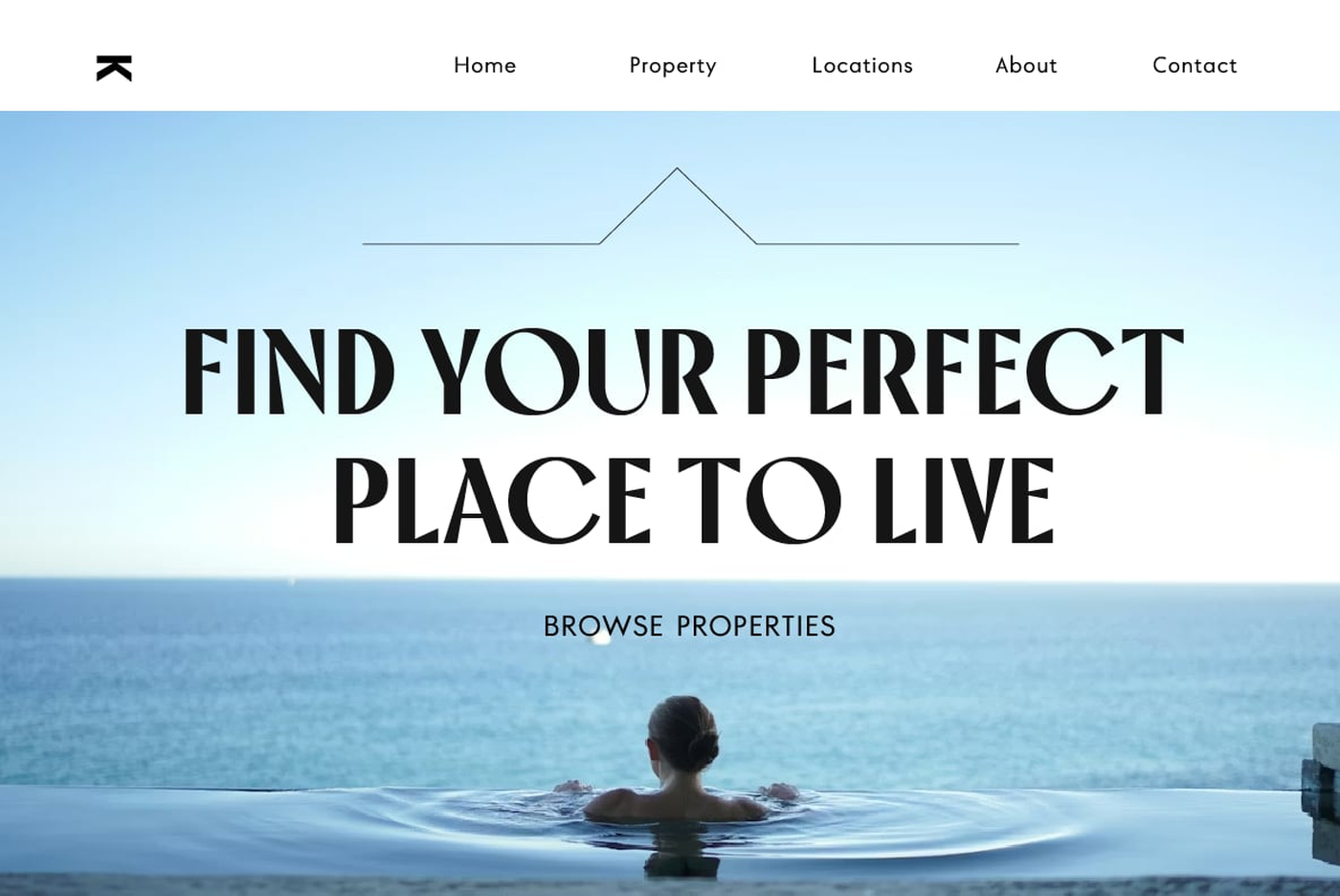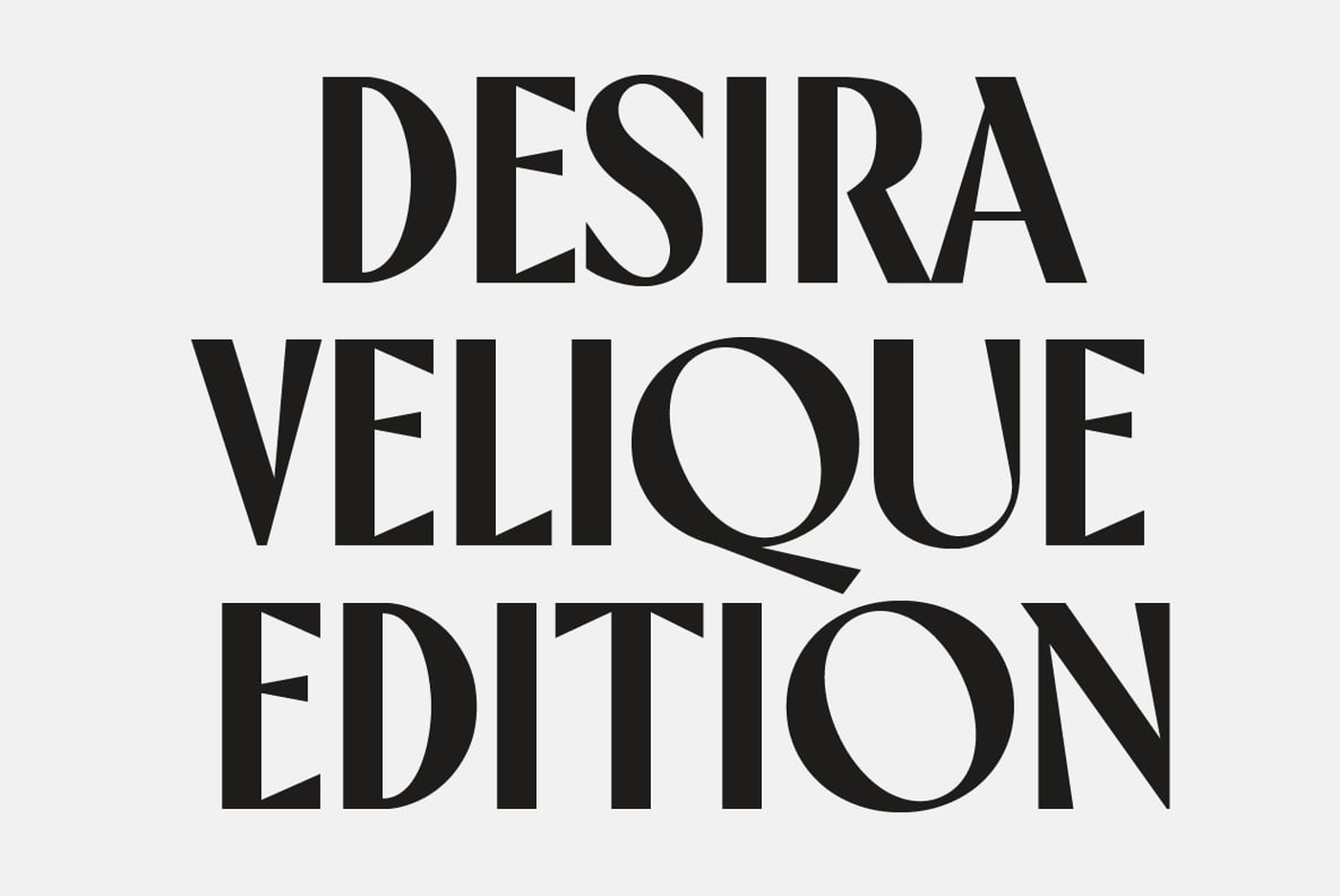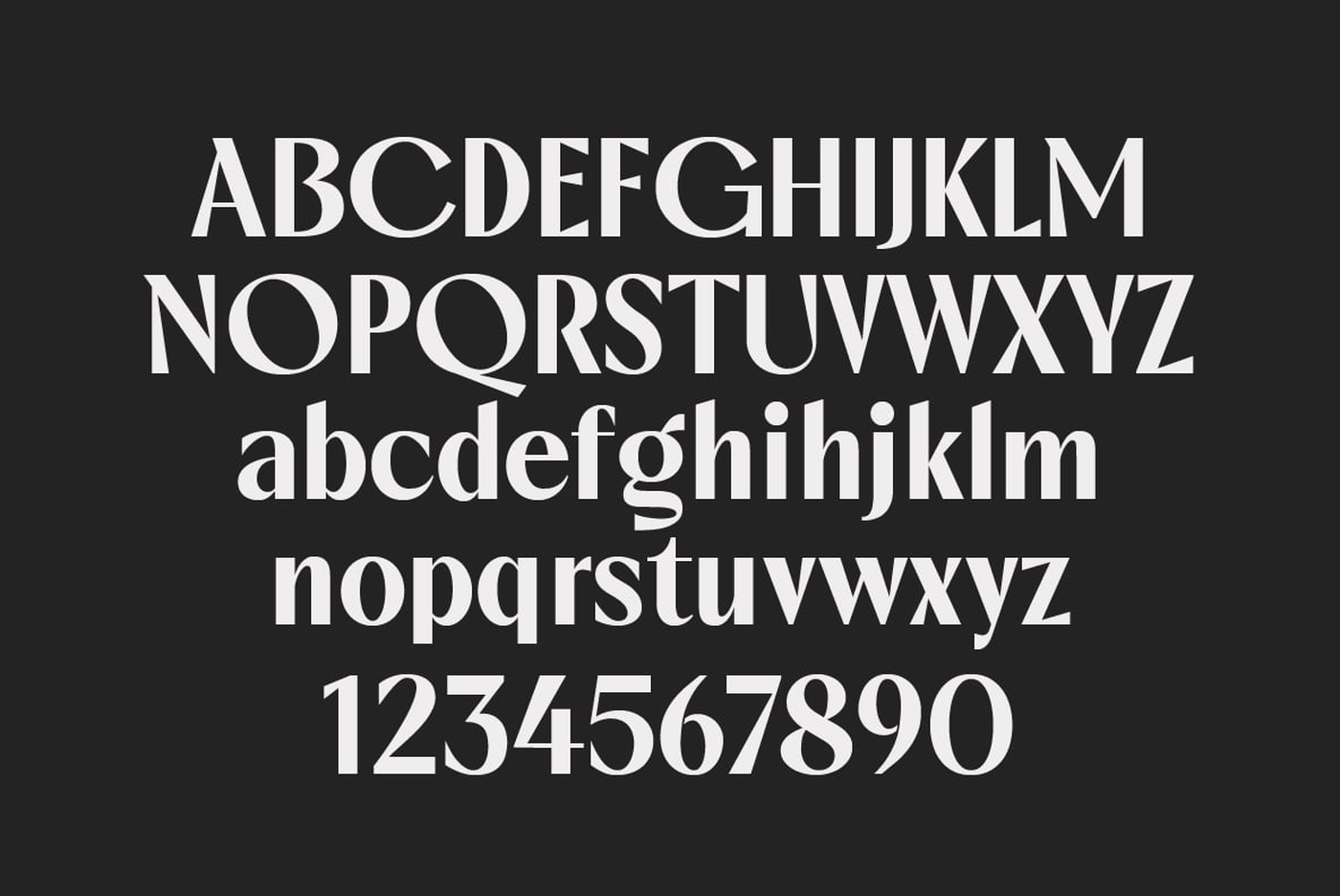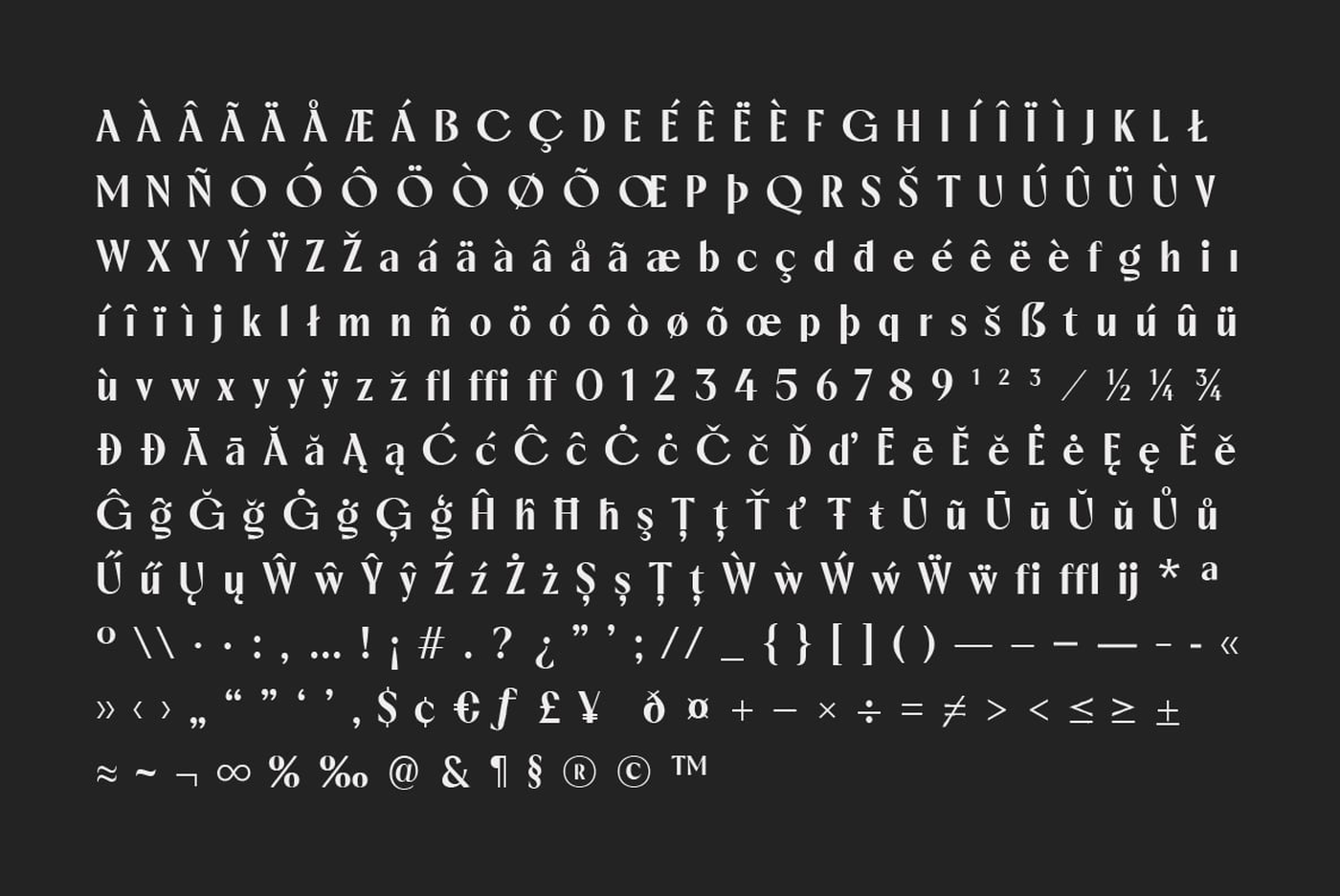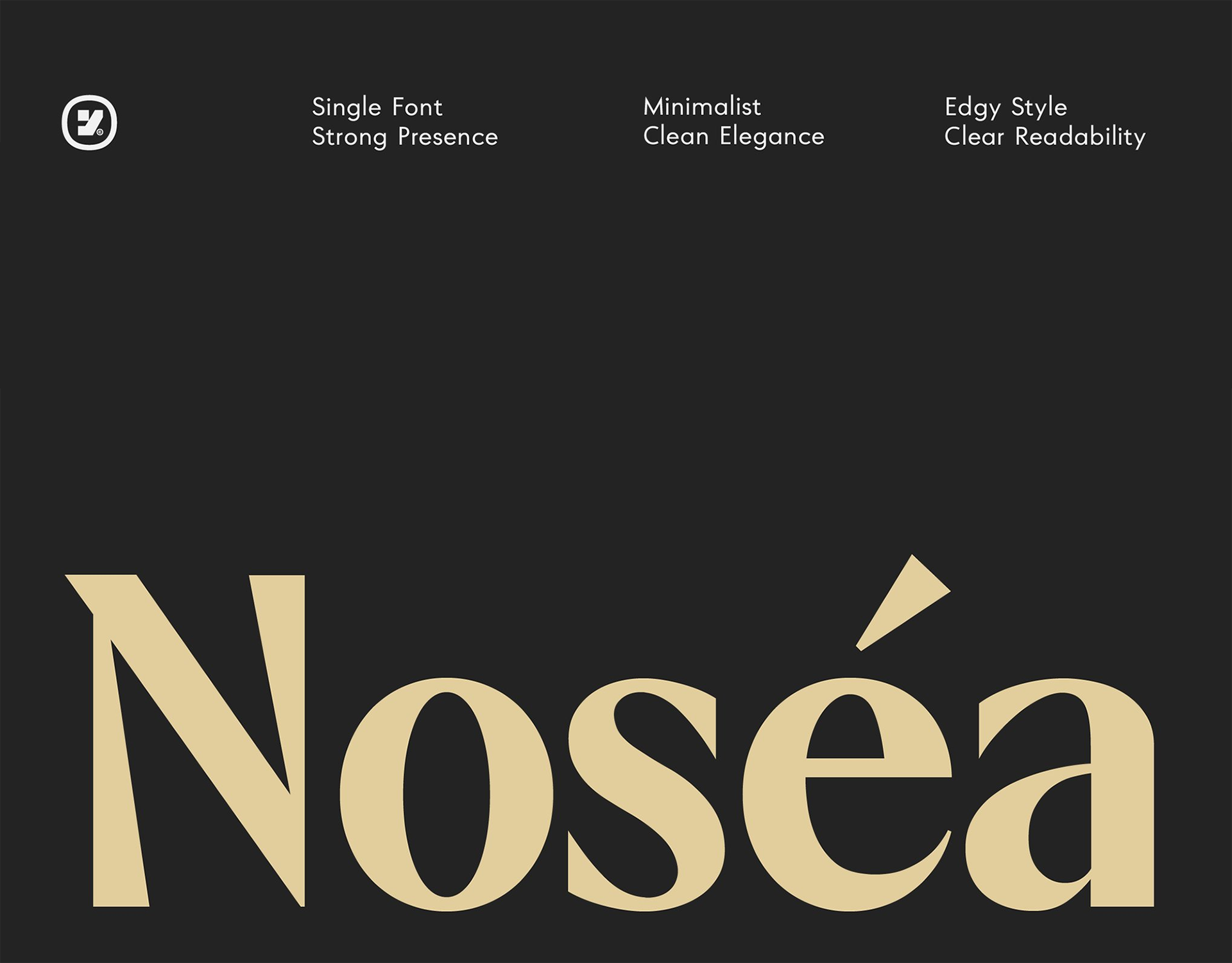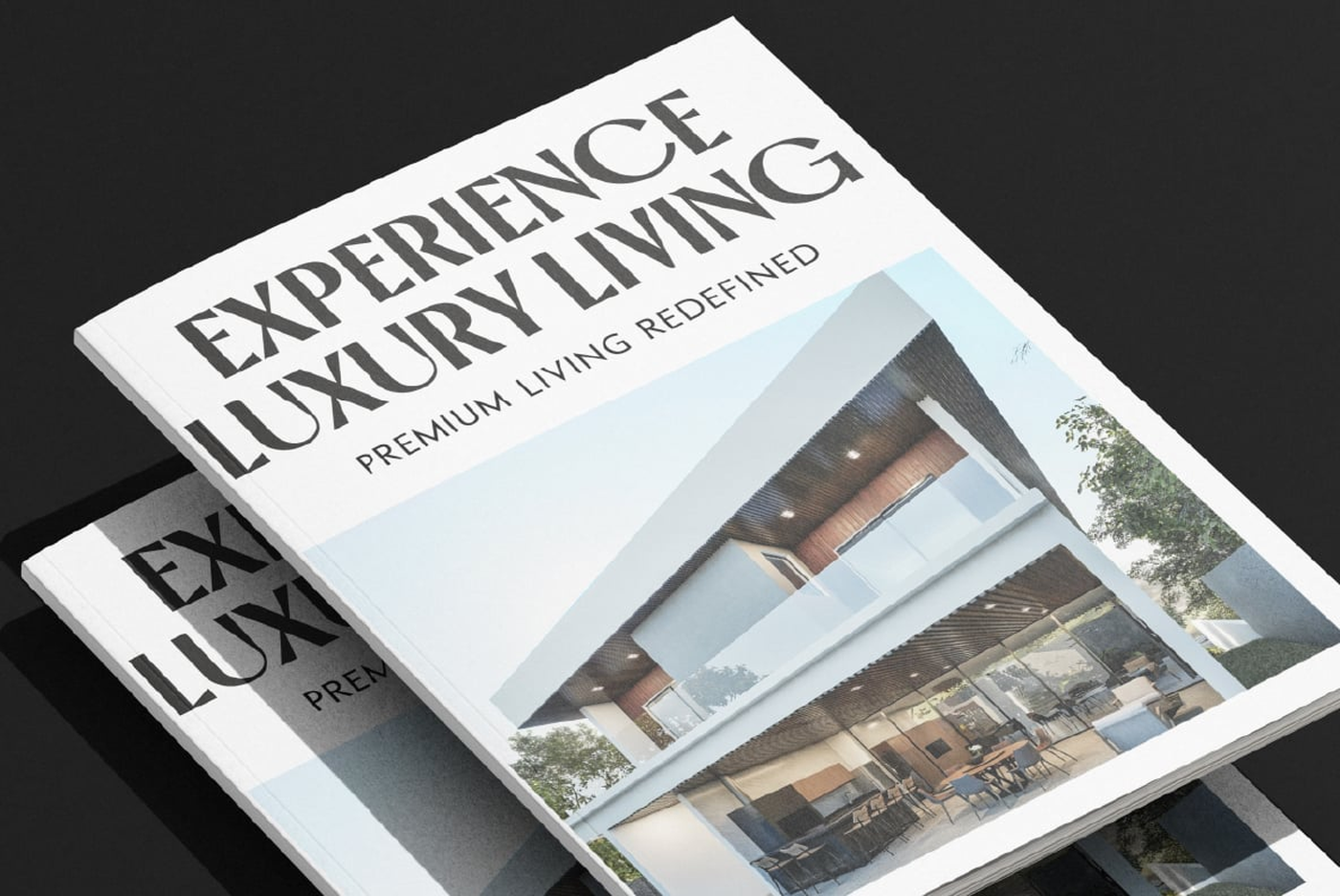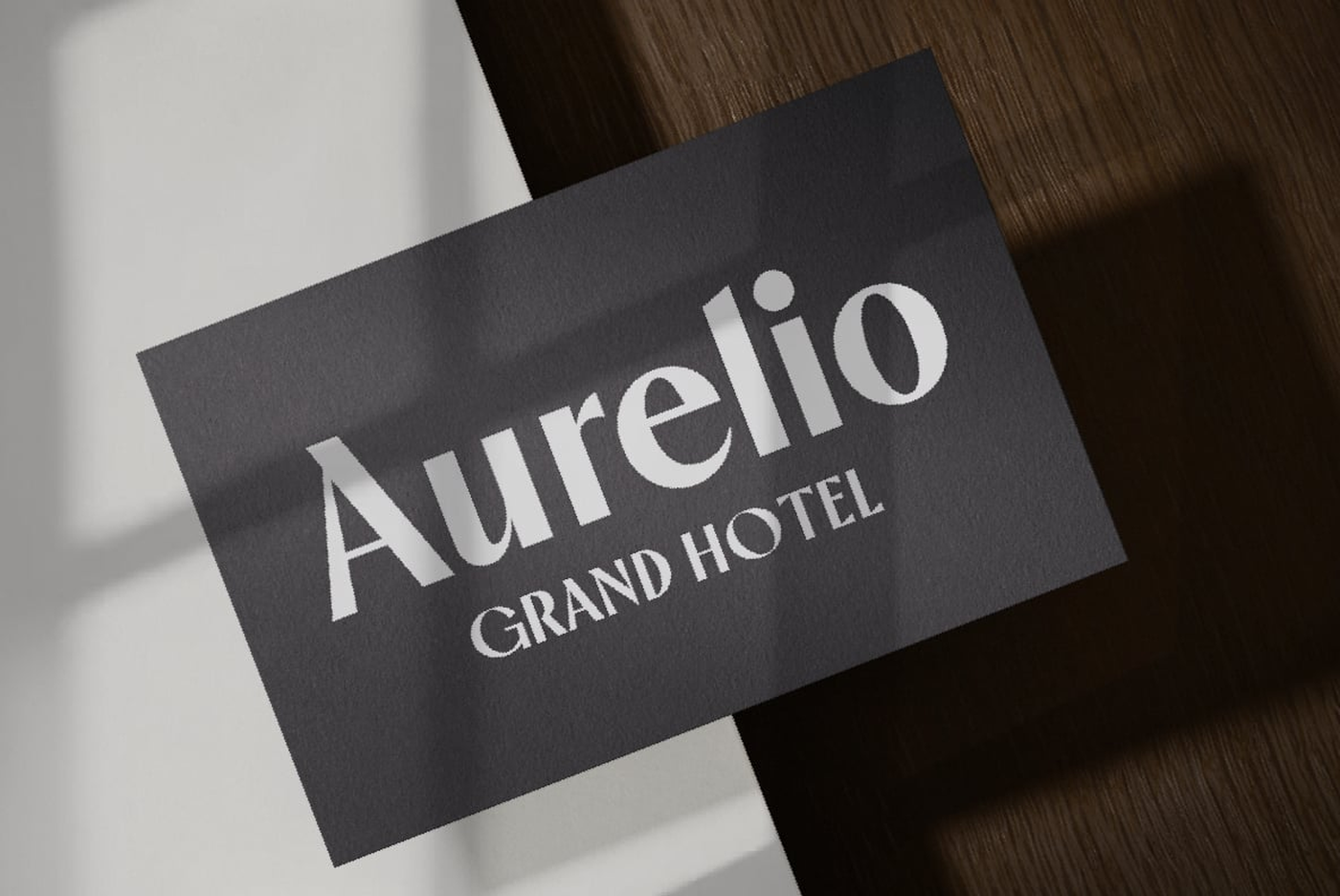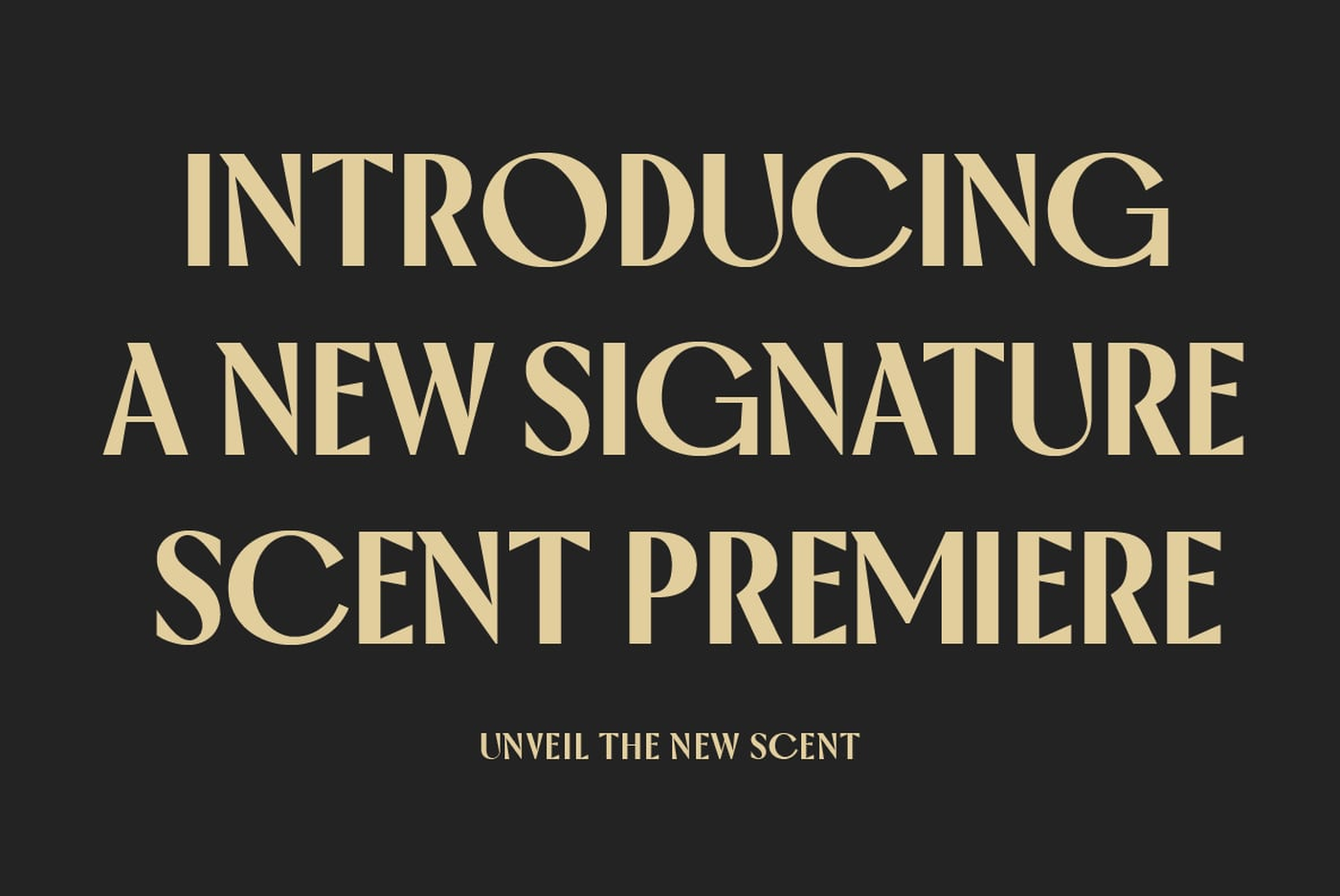
Nosea - Modern Serif Font
Nosea is a modern elegant display font designed to create strong visual impact with a refined and stylish look. Combining sharp letterforms with balanced proportions, this typeface delivers a bold yet sophisticated presence that stands out in any design. Crafted for designers who need a distinctive and high-end aesthetic, Nosea works perfectly for branding, logos, fashion projects, and editorial layouts. Its edgy yet clean style makes it highly versatile for both digital and print use. Whether you’re creating luxury branding, eye-catching headlines, or modern social media visuals, Nosea brings a unique personality that feels both contemporary and professional.